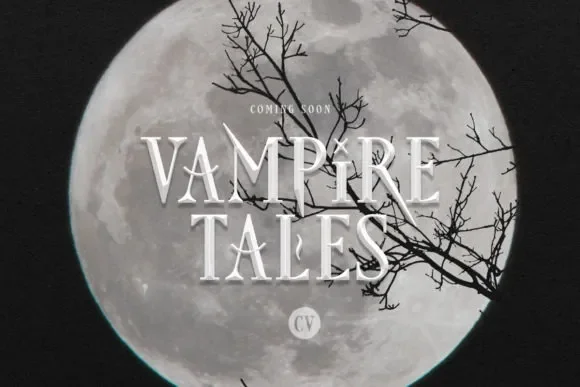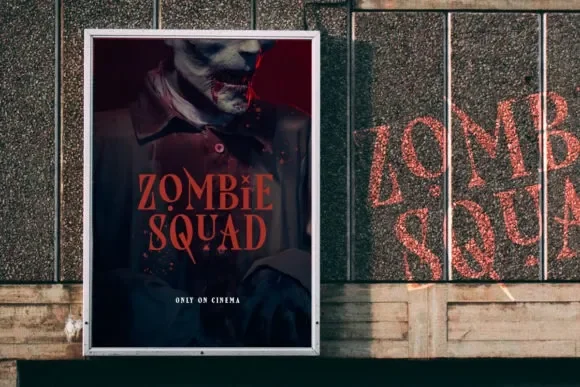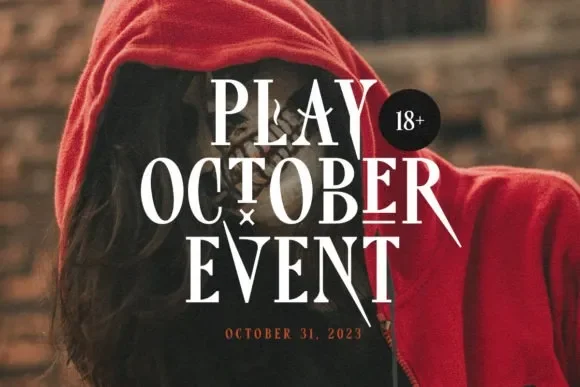
Freaky Font brings a creative twist to your designs without trying too hard. With both Regular and Outline versions, it feels playful and a bit retro, ideal for logos, headlines, or anything that needs a touch of bold personality. It’s that fun element that grabs attention while still looking polished.
Designer: Saridezra
Style: Display serif with eccentric, quirky flair
Comes in two styles: Regular and Outline, both with bold, eye-catching curves
This Font is perfect for quirky brand logos, retro posters, and fun social headers. Keep it dramatic by pairing with a straightforward sans serif like Montserrat or Open Sans, it lets the font shine without overcrowding the design.